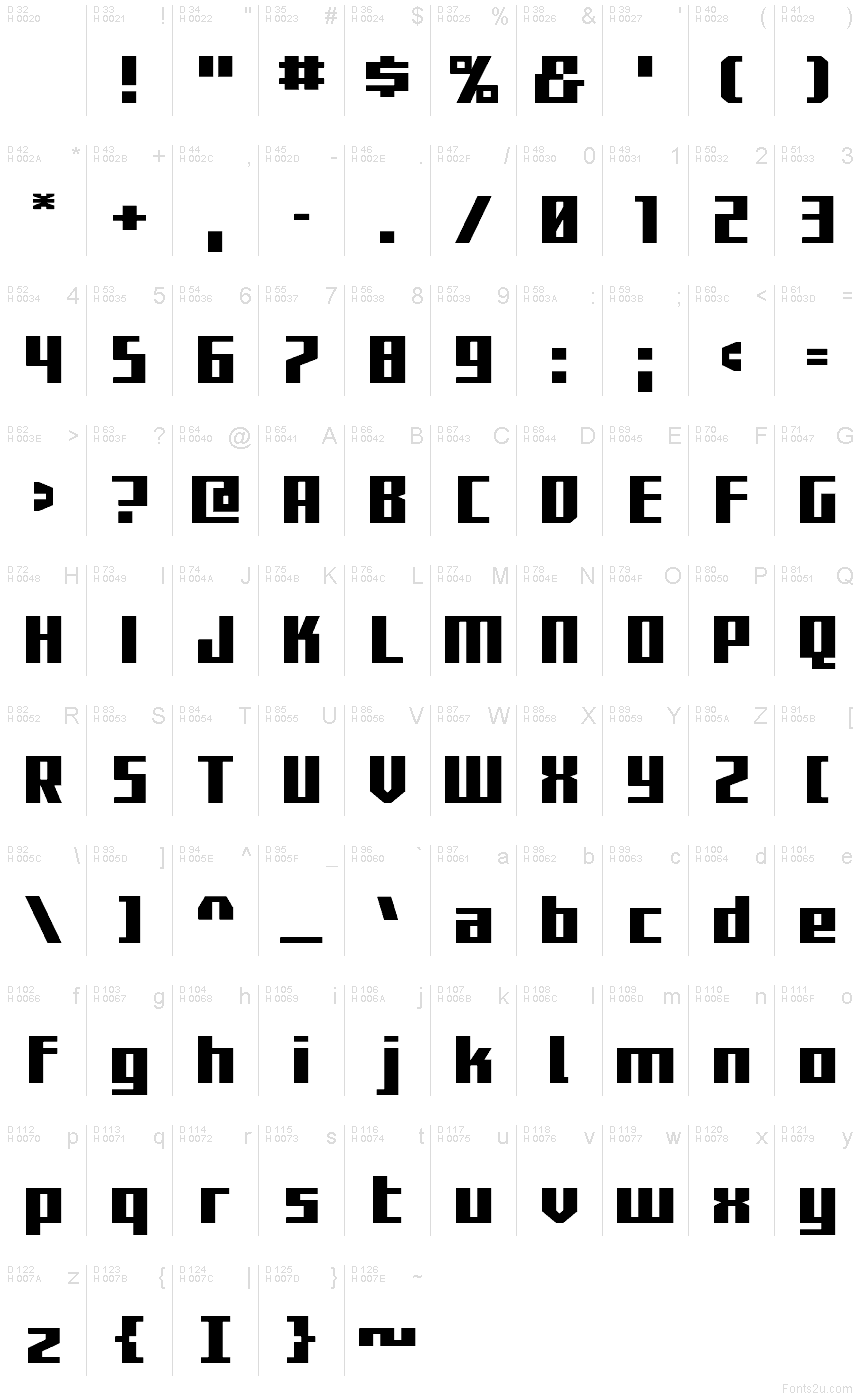
Capitol City Expanded Straight font by Iconian Fonts is a bold techno display typeface with a contemporary touch. It sets in blocky rectangular shaped letters that resemble sleek and futuristic geometric forms. The style is futuristic, expanded, and attention drawing, especially at large sizes where all its details can be noticed.
This free display typeface is fit for signage designs, video games or movies user interfaces, book covers and posters artwork. It would also look amazing on web designs, social media designs, CD covers packaging or other media/entertainment artwork.